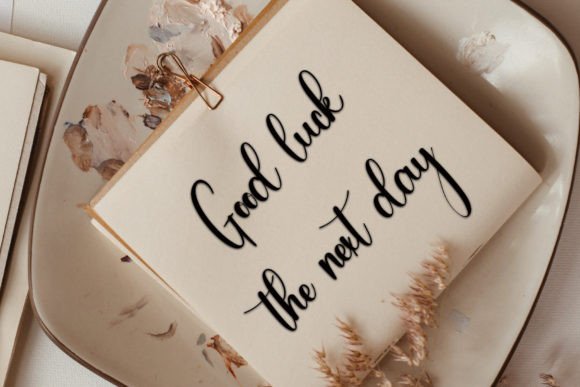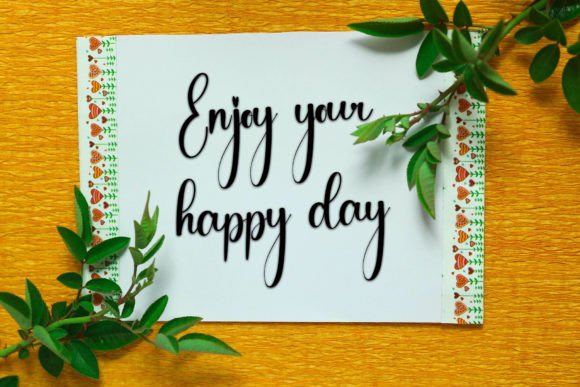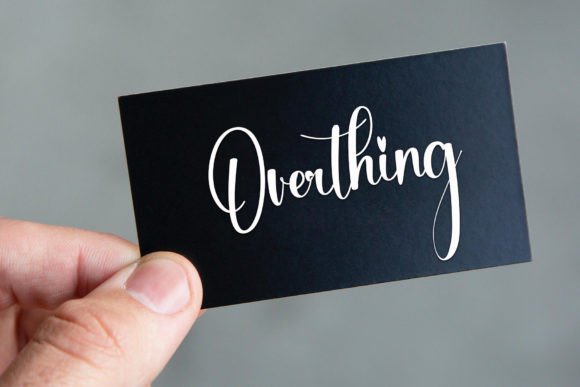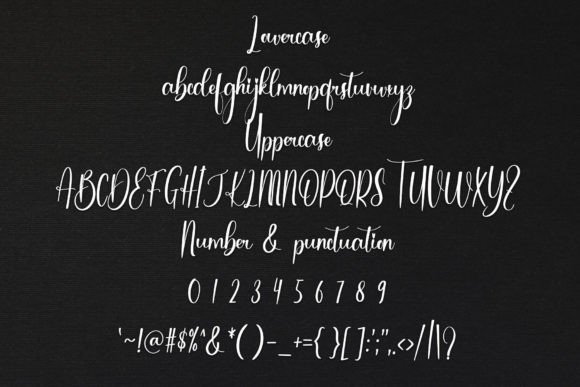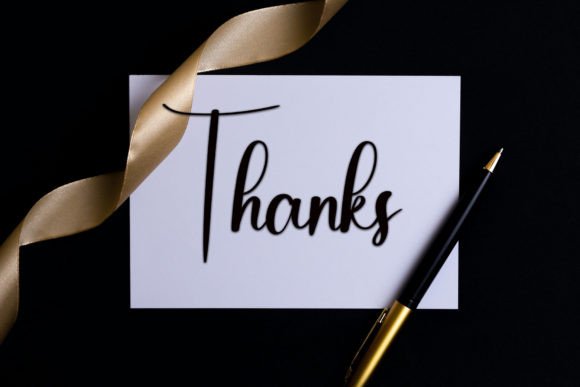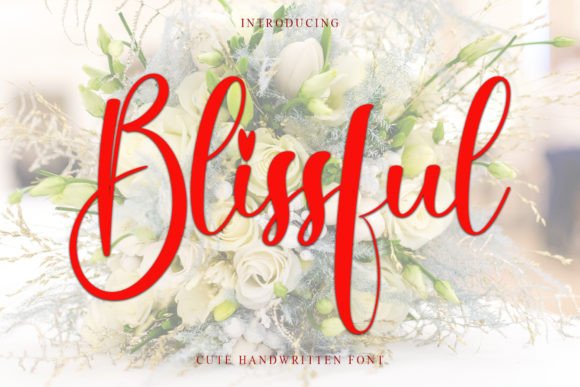
Introducing Blissful Font: Elevate Your Designs with Elegance
Are you on the hunt for a font that exudes sophistication, elegance, and a touch of timeless charm? Look no further than Blissful Font, a stunning handwritten typeface that is sure to capture your heart. With its incredibly distinct style and versatile appeal, Blissful Font is the perfect addition to your design arsenal, whether you’re working on a personal project or a professional endeavor.
The Essence of Blissful Font
Blissful Font is described as a neat and beautiful handwritten font, characterized by an elegant touch that sets it apart from other typefaces. Its unique blend of classic and modern elements makes it an ideal choice for designers and crafters seeking to add a touch of sophistication to their work. Whether you’re creating wedding invitations, branding materials, or digital content, Blissful Font is sure to make a lasting impression.
What Makes Blissful Font So Special?
So, what makes Blissful Font so special? Here are just a few reasons why designers and crafters are falling in love with this beautiful typeface:
- Elegant Touch: Blissful Font boasts an undeniable elegance that lends itself perfectly to a wide range of design applications. From formal events to everyday branding, this font is sure to add a touch of sophistication to your work.
- Timeless Style: Unlike trendy fonts that quickly go out of style, Blissful Font features a timeless design that will remain relevant for years to come. Its classic appeal ensures that your designs will stand the test of time, long after the latest design trends have faded.
- Distinct Character: With its unique blend of curved lines and delicate strokes, Blissful Font has an incredibly distinct character that sets it apart from other handwritten fonts. This distinctive style makes it perfect for designers seeking to create memorable and impactful designs.
- Versatility: Whether you’re working on a digital project or a print design, Blissful Font is incredibly versatile. Its clear and legible design ensures that it can be used for a wide range of applications, from body text to headings and titles.
Blissful Font is perfect for a wide range of projects, including:
- Wedding Invitations: Add a touch of elegance to your wedding invitations and stationery with Blissful Font.
- Branding Materials: Use Blissful Font to create stunning branding materials, including logos, business cards, and letterheads.
- Digital Content: Elevate your digital content with Blissful Font, perfect for blog posts, social media graphics, and more.
- Crafting Projects: Add a personal touch to your crafting projects, including scrapbooking, card making, and journaling.
In conclusion, Blissful Font is a beautiful and elegant handwritten typeface that is sure to elevate your designs to the next level. With its timeless style, distinct character, and versatility, it’s the perfect addition to your design arsenal. Whether you’re a designer, crafter, or DIY enthusiast, Blissful Font is sure to inspire your creativity and help you create spectacular designs that leave a lasting impression.